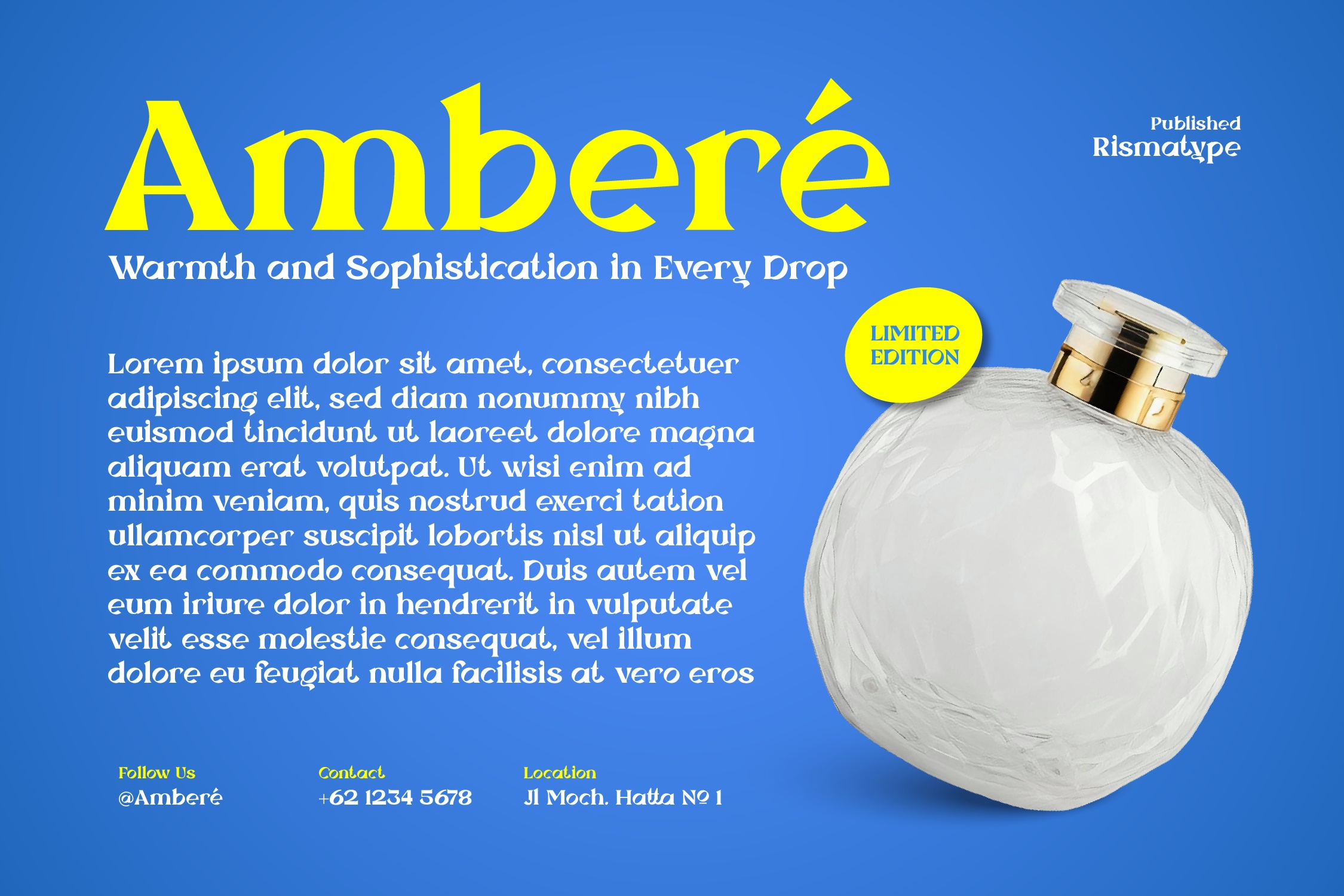
Starlight Horizon is heavy and soft. Serifs flare out from the stems, the S curls tightly and the overall look is warm rather than sharp. On the cover the name is set in yellow on bright blue. A perfume ad for a scent called Amberé uses it for the title, with a small LIMITED EDITION badge.
Best uses for Starlight Horizon
- Perfume and cosmetics ads
- Posters
- Book covers
- Cafe branding
- Packaging
Pair it with a clean sans. Poppins works for text. DM Sans suits small print.
Starlight Horizon Serif Font